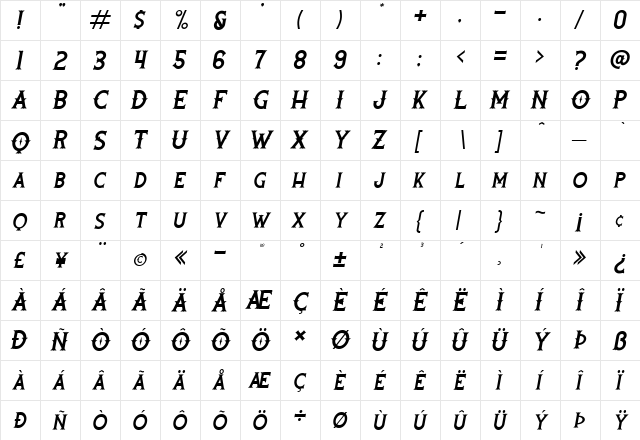
Rooters Italic
| Foundry | Twicolabs Fontdation |
| Designer | Twicolabs Fontdation |
Design Context for Rooters Typeface
Rooters is a composed and adaptable typeface that performs quietly and consistently across a wide range of design contexts. The slanted form adds forward momentum and visual energy.